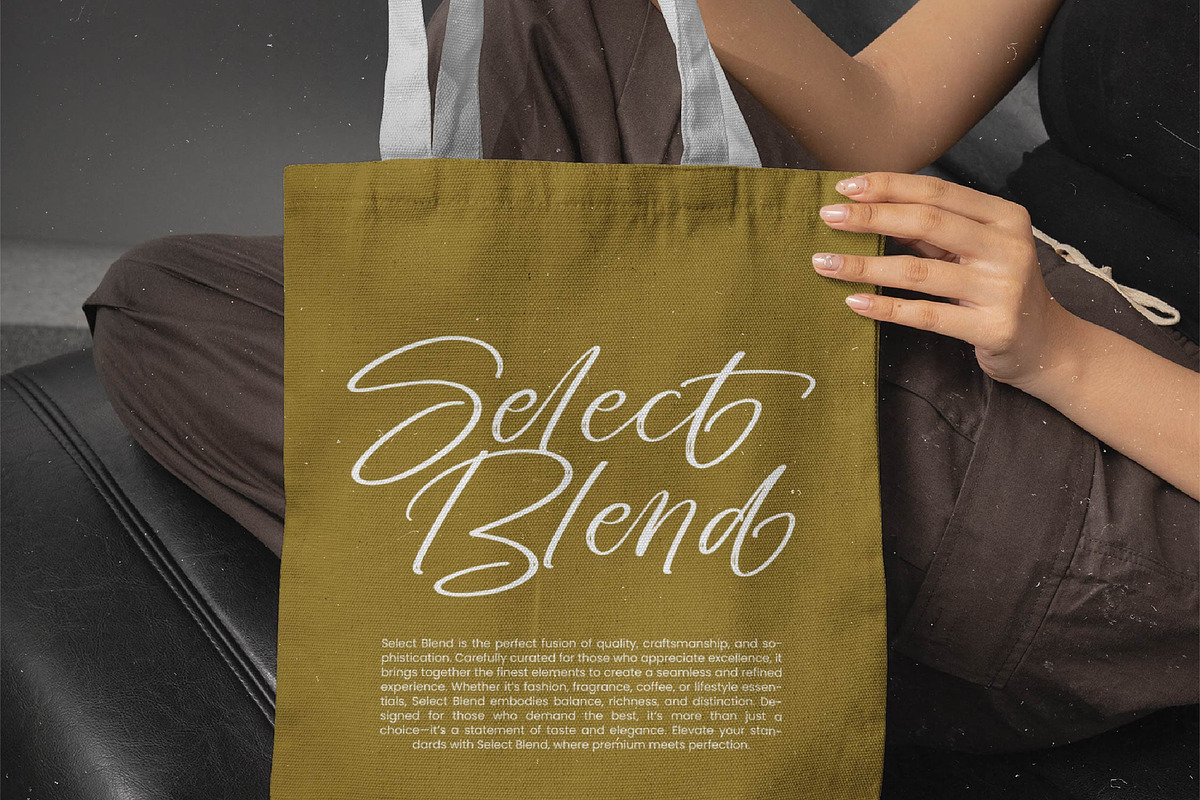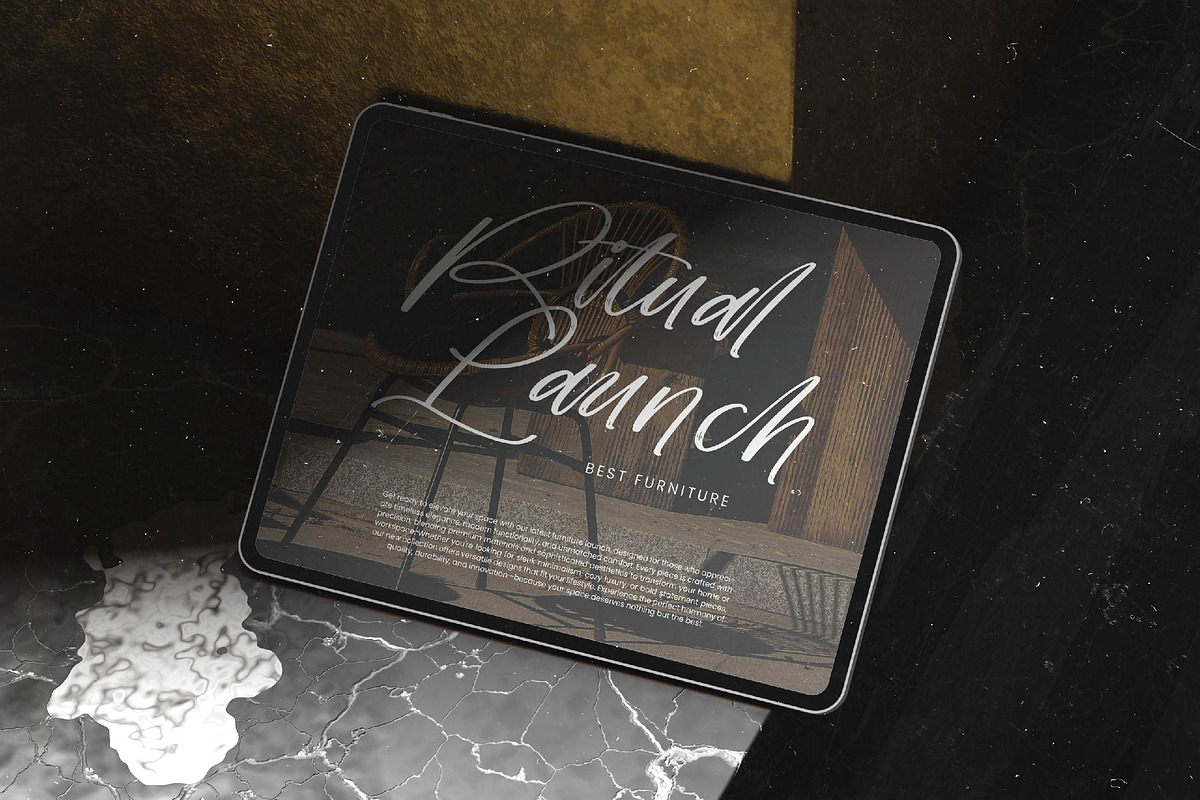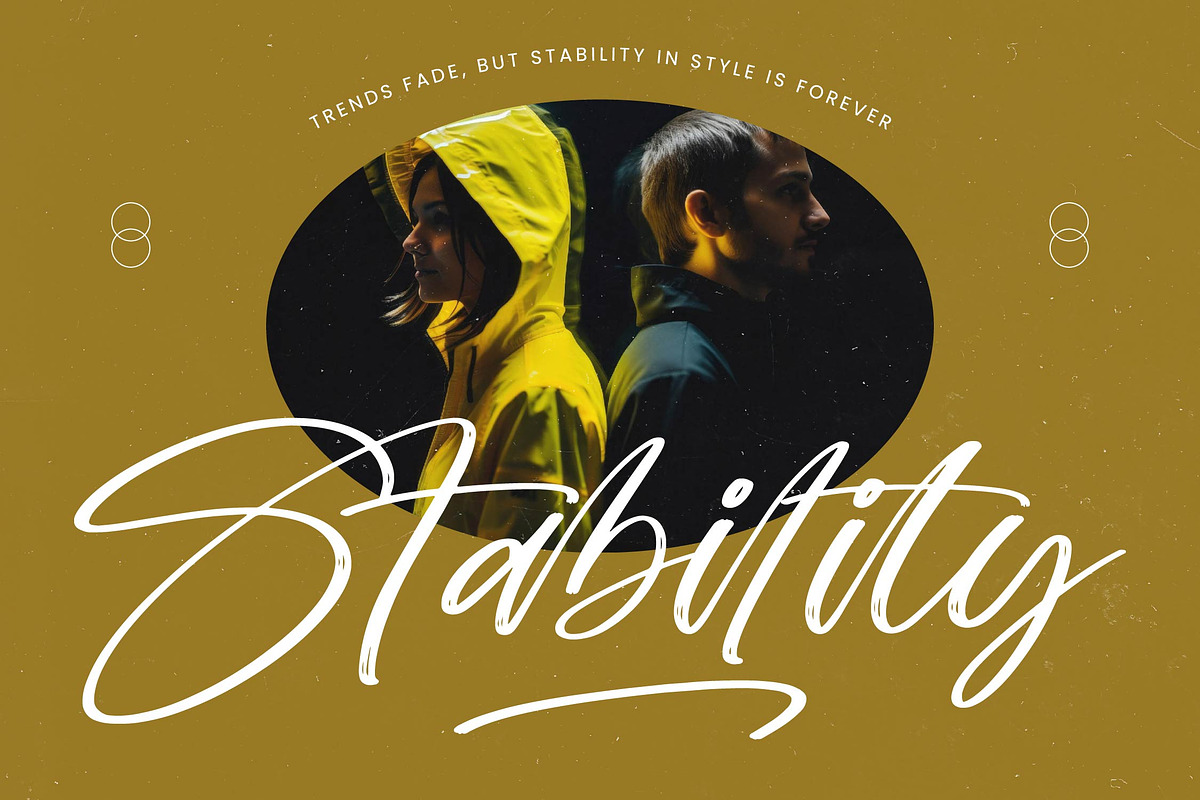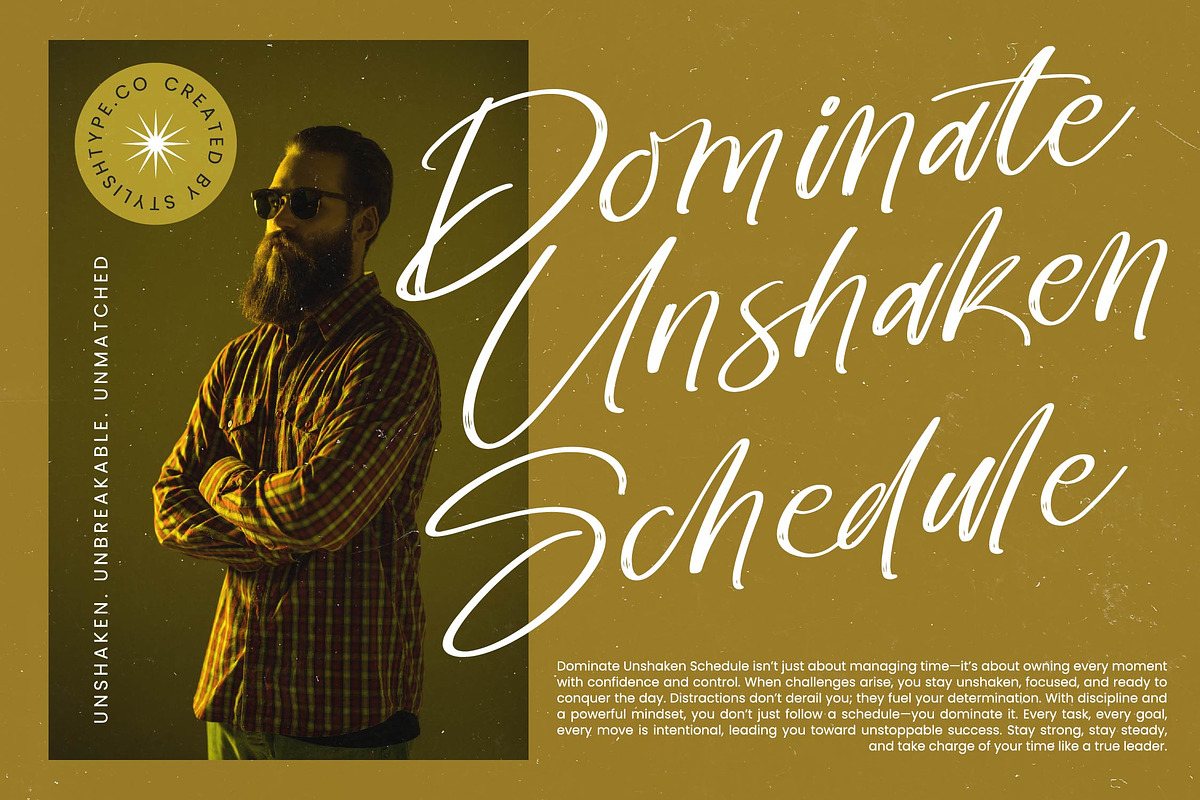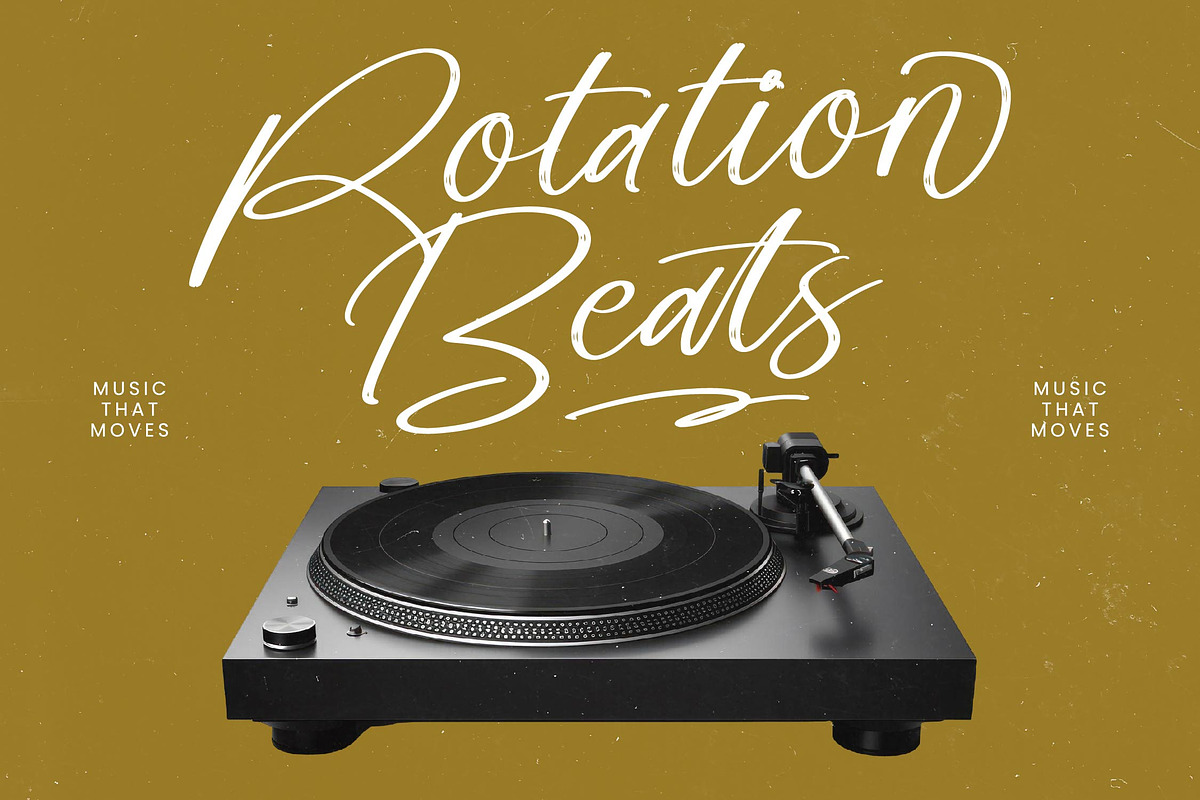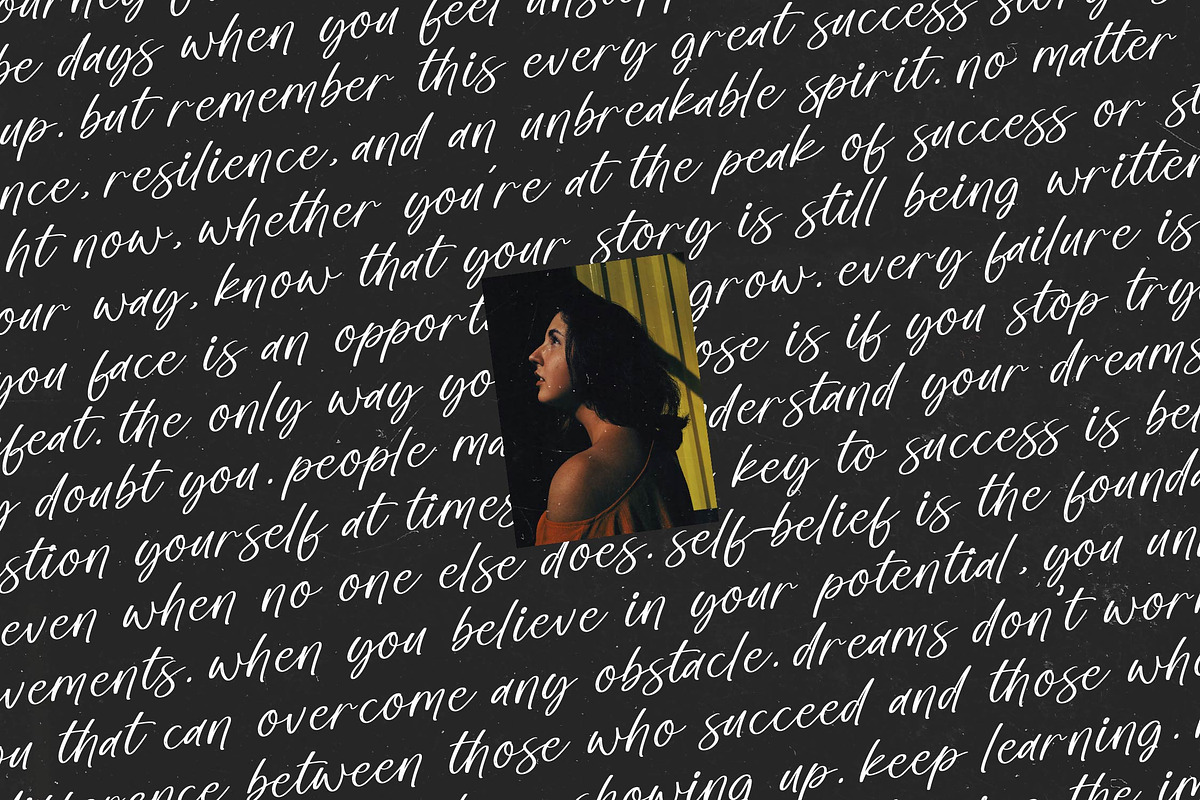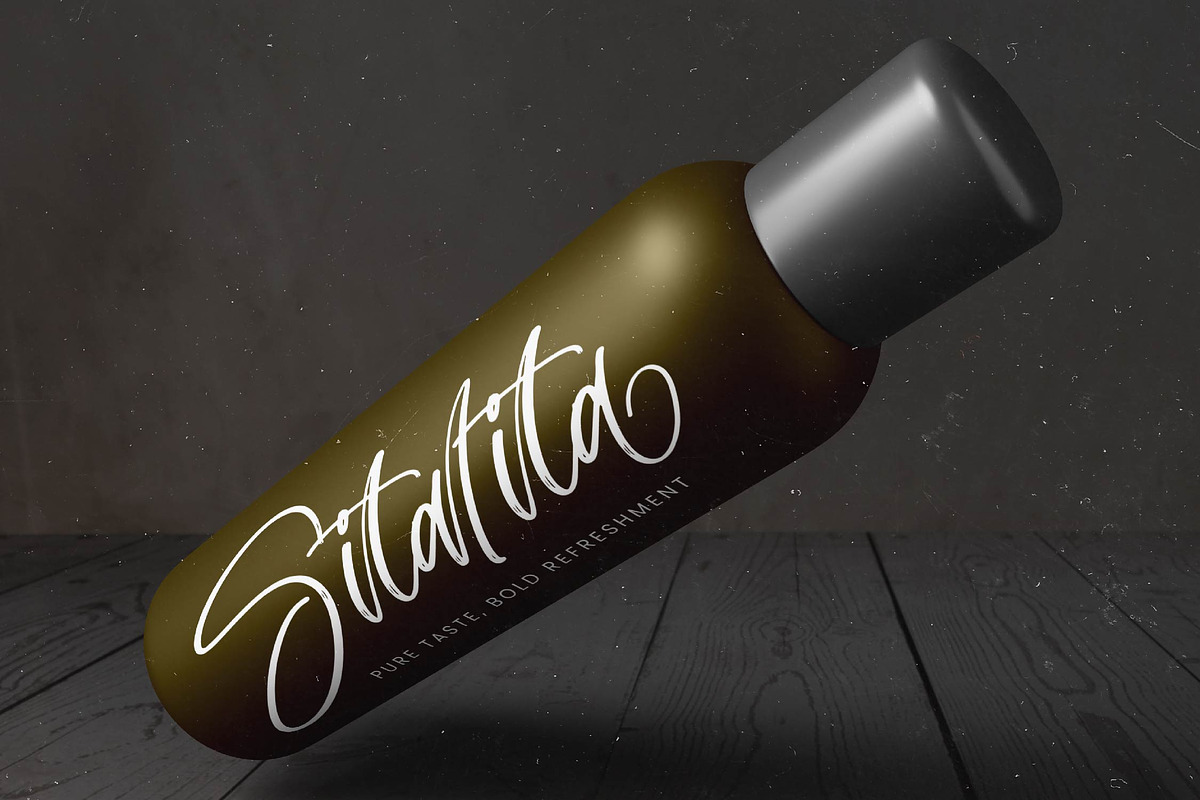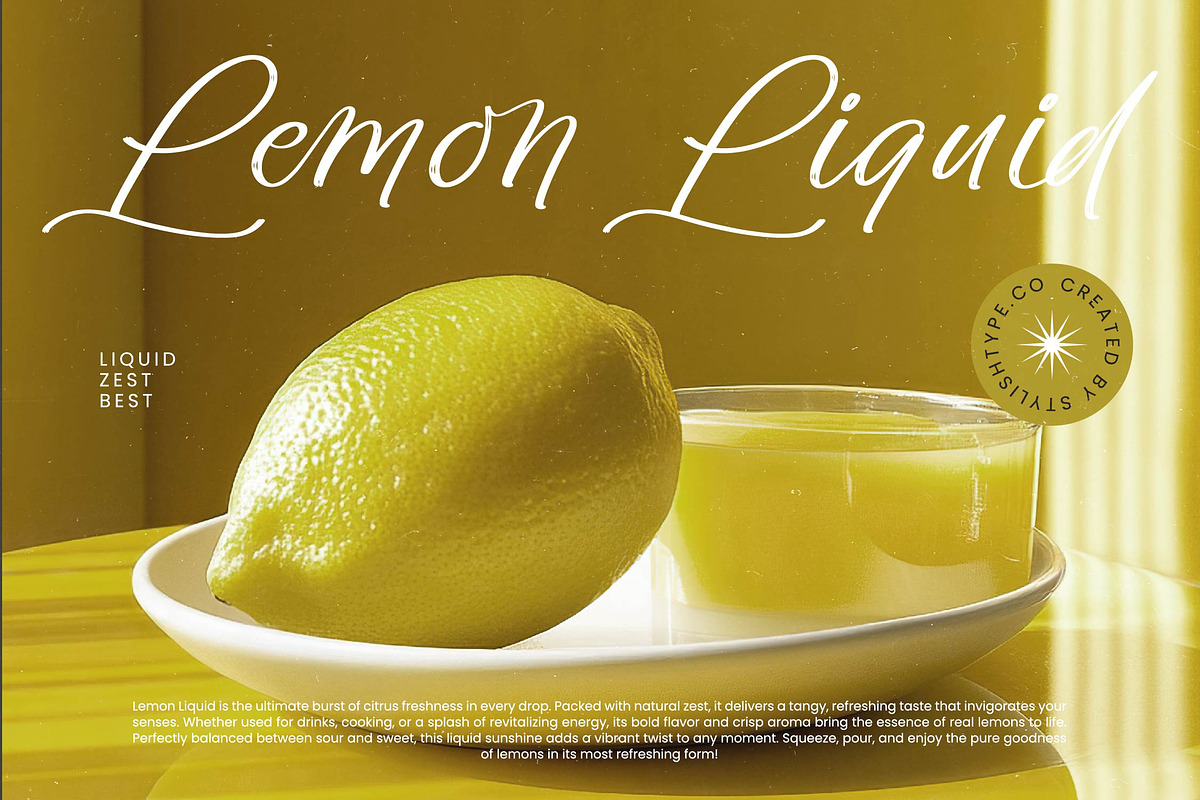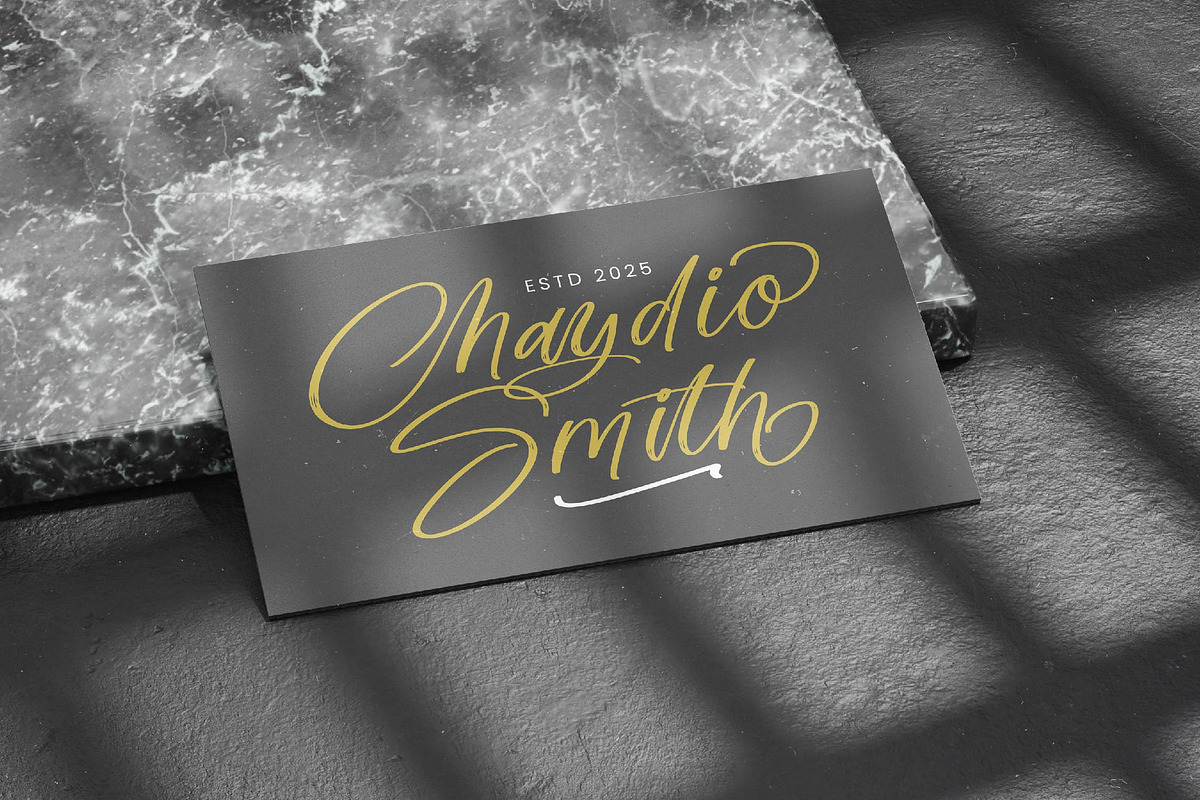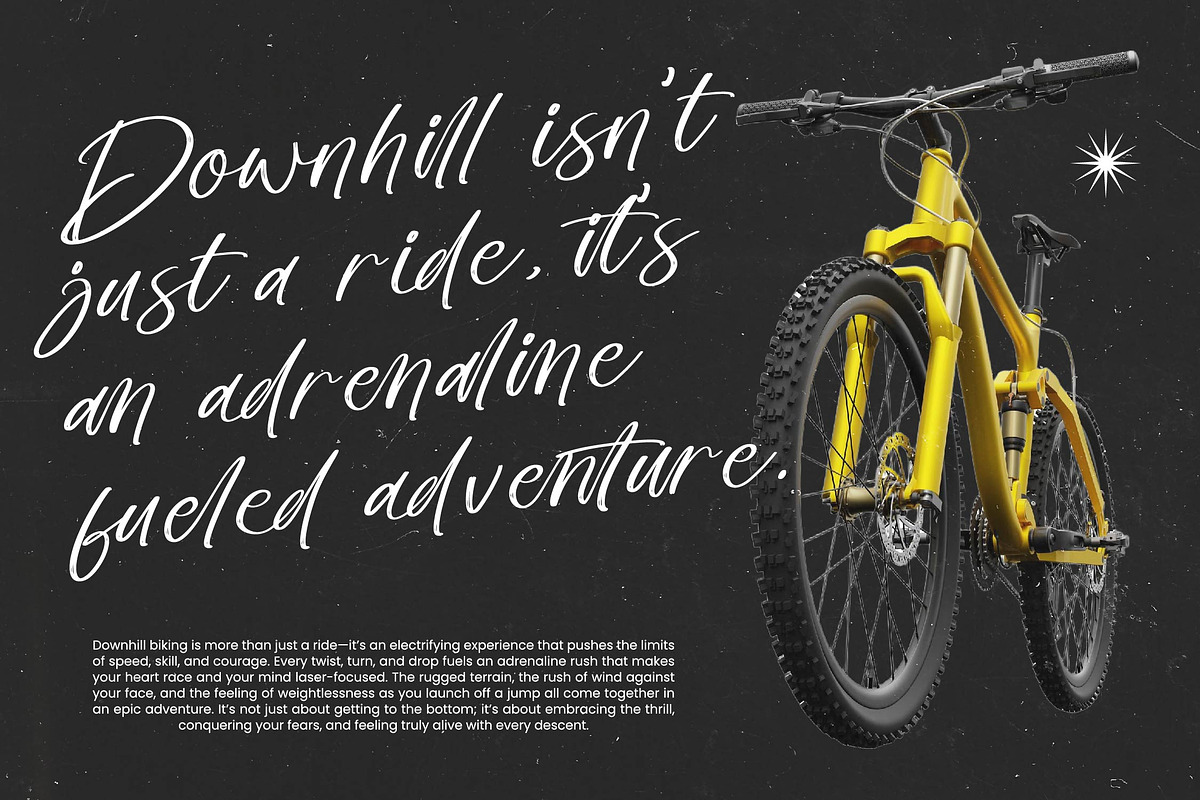
Chaydio Smith Bold Handwritten Font
Chaydio Smith - Bold Handwritten Font , from Stylishtype.Co , Suitable for any projects such as: logos, branding projects, homeware designs, product packaging, mugs, quotes, posters, shopping bags, t-shirts, book covers, name card, invitation cards, greeting cards, label, photography, watermark, special events, and all your other luxury and beautiful projects that need a Luxury Script taste.